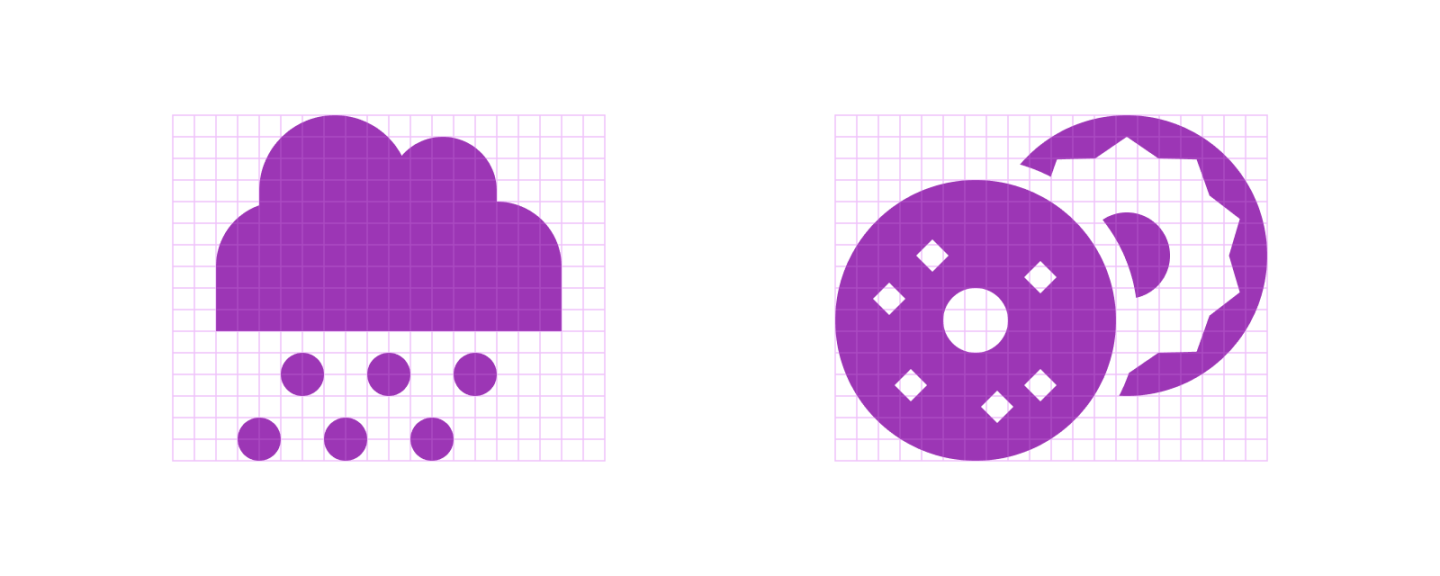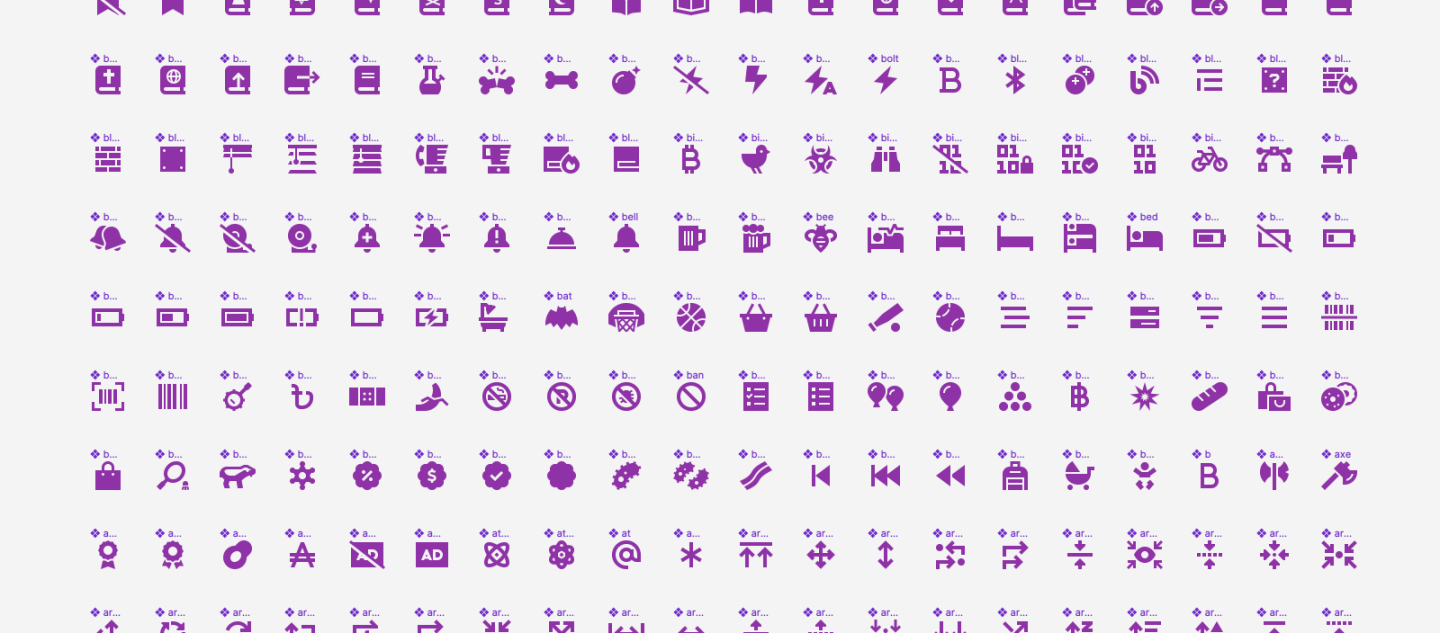
Well hello, Mr. Fancy Pants.
Rubber chickens and squirting flowers are great accessories for lots of occasions — just not a black tie event. And so it is with design. It’s true that Font Awesome is known for the whimsical and zany, but sometimes you need an icon family that captures a more formal tone. That’s why we built Font Awesome Sharp!
Font Awesome Sharp: Cut From the Same Cloth But with a Touch of Class
Our work on Sharp actually began by taking stock of what makes Font Awesome Classic, well, awesome. What are its stylistic hallmarks? What’s the glue that holds all 15,000+ icons together in a happy bunch? Once we nailed down some specifics, we knew what to tweak to make something crispier yet still familiar.
Spot the differences
Some glyphs lend themselves better to sharpened points; while others were beveled to preserve visual density, or to fit without icon boundaries.
To point or to bevel? That is the question.
This is all well and good when cherry-picking a handful of icons to test. But what do you do when your icon is a circle? Circles are pretty famously… pointless. There’s a lot we can do to add sharpness to an icon‘s form, but we quickly nixed doing so at the expense of an icon’s ability to communicate its “true self.” If we sharpen something and now you can’t tell what the icon is (or doesn’t match its name!), then we have a problem.
We changed a lot of small things on more commonly-circular forms, like flattening out clouds and adding spiky spices to the bagel.
There are a lot of choices to make when you’re remaking 15,000+ icons — decisions you make for icon #3 might not hold true anymore when you get to icon #3,000. So we did what you used to on leftover night growing up: throw everything into a big pot, stir it up, and see how it tastes. Performing a pass like this adds a good chunk of time onto production, but it’s vital for quality and cohesion across the entire Sharp family. Plus, it’ll make things much easier when we move on to the remaining styles!
A small cross-section of our Sharp Solid test file
Thankfully, we can head off a lot of future problems at the pass by using and maintaining all our modifier components in Figma.
And this is just the start! Keep a sharp eye out for Regular, Light, Thin, and Duotone, which are all coming soon.
Sharp Icons Are Great for Projects Needing a Buttoned-Up Look
We love our Classic family, but sometimes a smooth, rounded vibe just isn’t the right fit for your project. As a functional piece of UI, icons should borrow a lot of their substance from other components and pieces that have been fleshed out: colors, cards and buttons, stuff like that.
But they’re also often paired with typography, so you may want to ensure they can aesthetically bridge between these different pieces. So if you dig into your type’s anatomy and find the letterforms are built on elements of geometric curvatures and sharp terminals, Font Awesome Sharp might be for you!
Some other ideas of projects where Sharp might be a good fit:
- Banking & financial tech
- Construction
- Furniture & home goods
- Engineering
- Government forms
- Scifi card games
- …or anything that needs a sense of class and stability